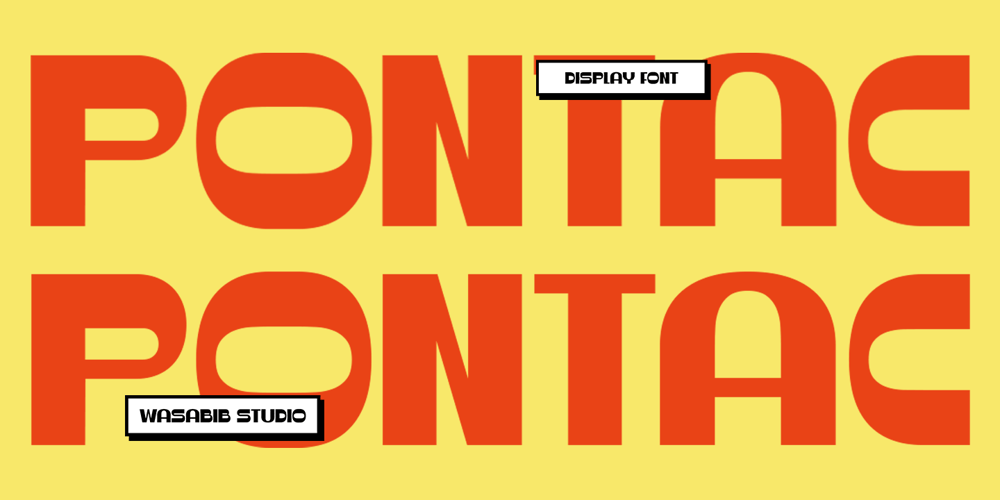
WS Pontac Font Family was designed by Miftahul Habib and published by Wasabib Type Foundry. WS Pontac contains 1 styles and family package options. ws Pontac’s simplicity and boldness make it ideal for various display purposes. It can be used effectively in headlines, logos, and branding materials where impact and clarity are essential. Its straightforwardness ensures legibility even at larger sizes, making it suitable for signage, banners, and other visual communication needs.Overall, ws Pontac is a display font that embodies strength, simplicity, and courage. Its bold letterforms captivate attention, while its simplicity exudes clarity and focus. Whether you need to convey a strong and confident message or add a touch of boldness to your design, WS Pontac is a dependable choice.